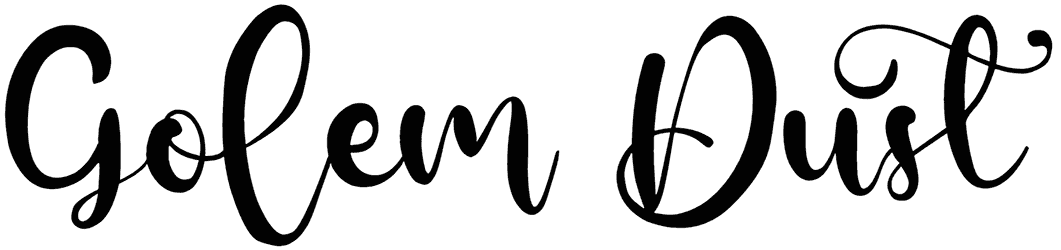
Golem Dust Font
What can be more ravishing than a curved manuscript face with a cheerful and elegant mood? Well, Golem Dust has the same vibe an,d with almost all of the characters, can be used for various subjects. As a handwritten font, Golem Dust is a nice item for postcards, packaging, mugs, and many other items and would make them modern.